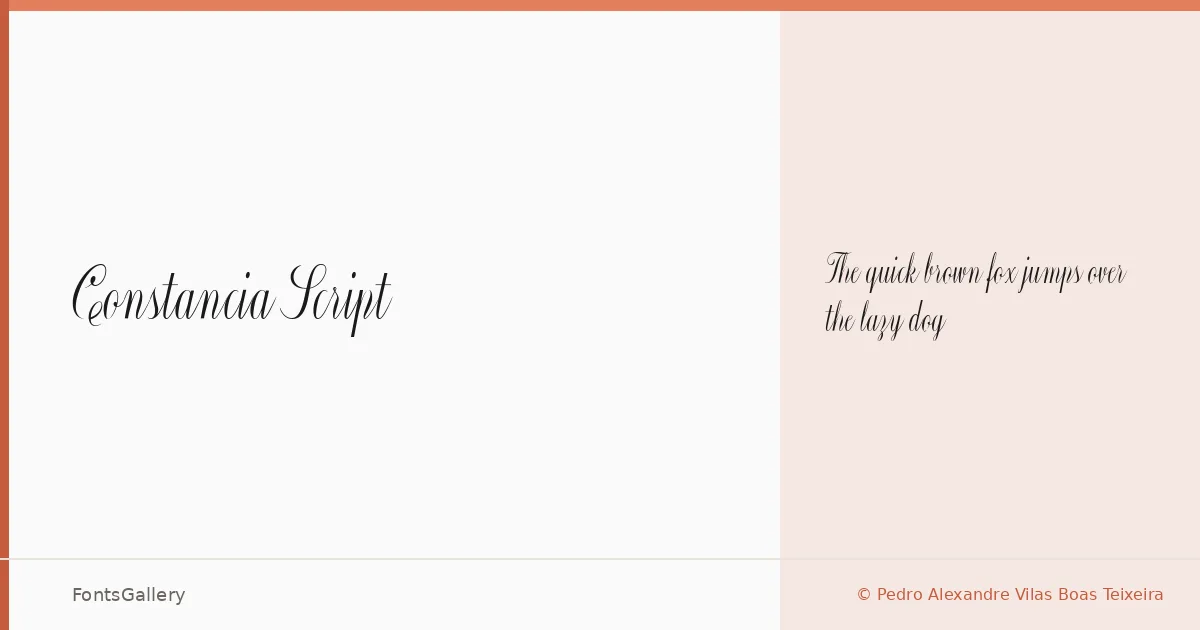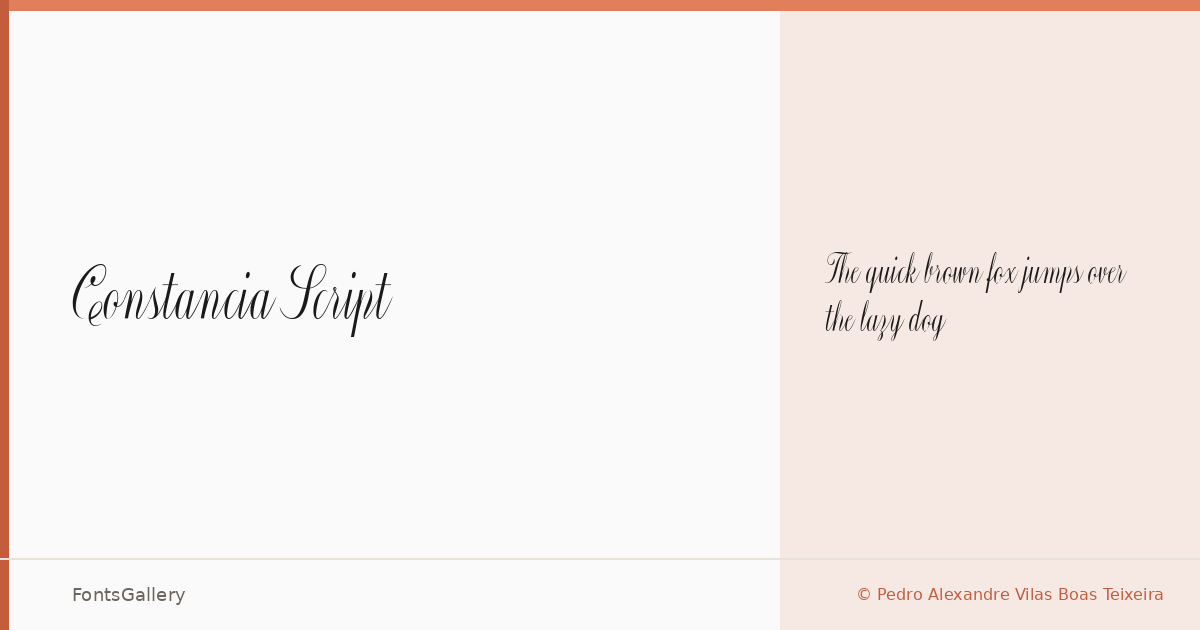
About Constancia Script Font
There is a particular confidence in the stroke weight here — this is a bold script that leans into luxury rather than whisper-thin delicacy, and it holds its presence at display sizes without apology. Constancia Script is the work of designer Pedro Alexandre Teixeira, released under the foundry Pedro Alexandre Vilas Boas Teixeira. The single cut available — Bold — is delivered as a TTF file and carries a Latin character set.
The mood sits squarely in classic, romantic, and elegant territory: calligraphic roots are legible in the letterforms, but the weight gives them a ceremonial gravitas rather than a light cursive feel. Because there is only one style in the family, you are working with a deliberate statement face rather than a workhorse system — it asks to be used at scale, where its rhythm and contrast can fully register. That confident stroke makes it particularly well-suited to short runs of headline or display text on premium materials.
Wedding invitations, certificates, greeting cards, and luxury brand logos are the natural territory for this script — anywhere that a formal, romantic hand signals occasion and care. For body text or supporting type, it pairs well with the editorial warmth of Canela or ABC Arizona, and balances cleanly against the neutrality of Helvetica or Asap; Anglecia Pro offers a more decorative counterpart for layered headline treatments.